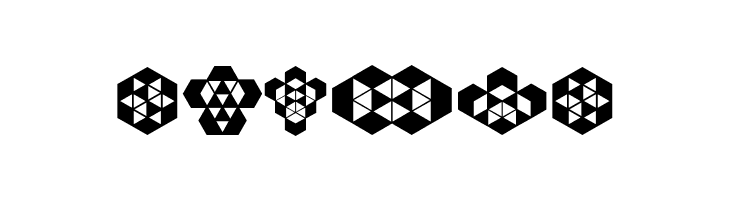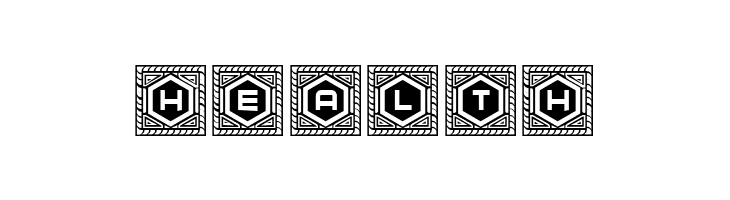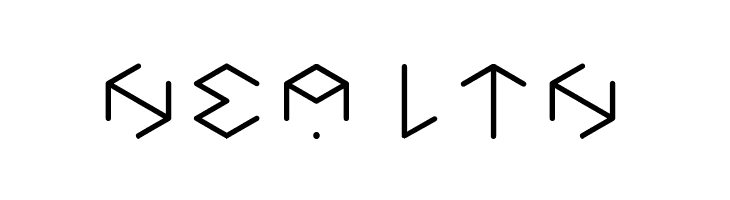
A geometric, angular font with hexagonal shapes and consistent line thickness.
A modern, hexagon-patterned font with a bold and futuristic style.
A geometric, futuristic font with hexagonal shapes and angular lines.
A geometric, angular font with hexagonal motifs and a futuristic style.
A decorative font with characters enclosed in hexagonal shapes, featuring geometric patterns.
A bold, geometric pattern of hexagonal shapes with high contrast.
A bold, geometric font with characters enclosed in decorative hexagons.
A geometric, decorative font with characters in hexagonal frames.
A decorative font with bold characters enclosed in hexagonal frames, featuring intricate line patterns.
A bold, geometric font with a hexagonal pattern, offering a modern and futuristic style.
A bold, geometric font with a 3D effect and angular design.
A bold, hexagonal font with a futuristic and geometric style.
A bold, 3D block font with hexagonal shapes and outlined numerals.
A bold, hexagon-framed font with a futuristic and industrial style.
A bold, geometric font with hexagonal borders and a futuristic aesthetic.
A modern, decorative font made entirely of hexagonal shapes, offering a unique geometric style.
A geometric, futuristic font with bold, angular characters enclosed in hexagons.
A bold, hexagon-themed font with a futuristic and geometric style.
A geometric, angular font with a hexagonal theme, ideal for monograms and logos.